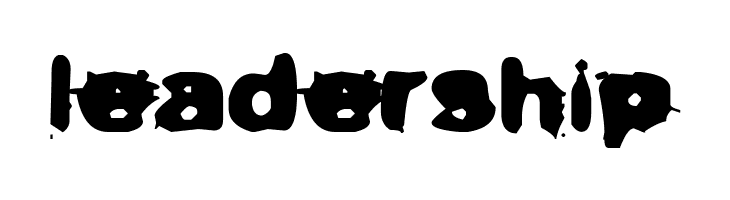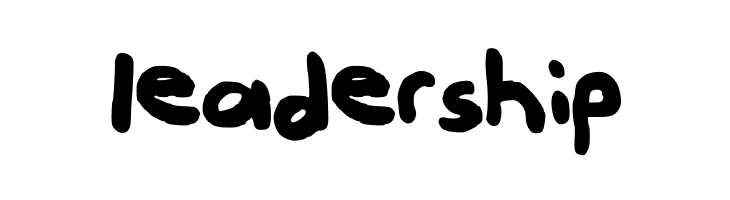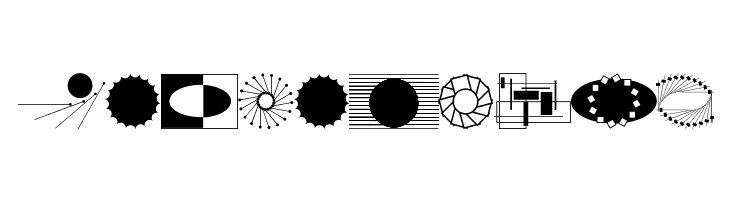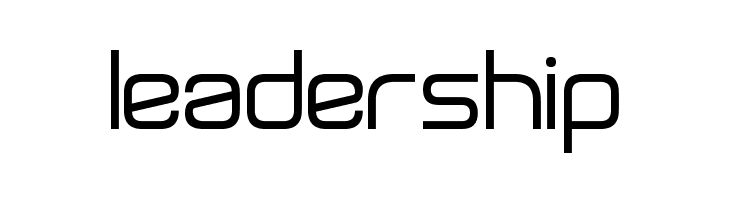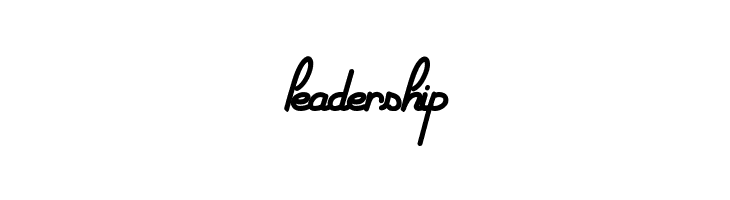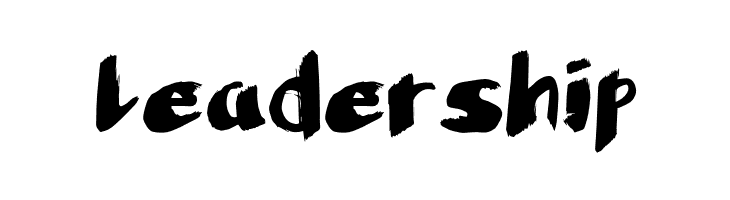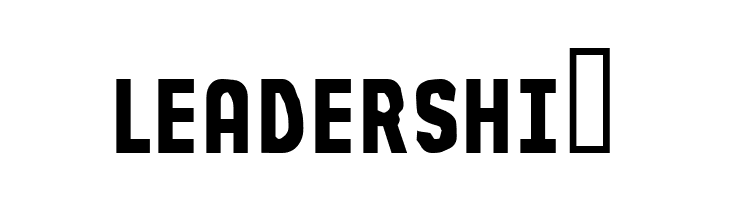
A sleek, modern font with geometric lines and a professional aesthetic.
A bold, angular serif font with a modern edge.
A collection of abstract and geometric shapes with intricate patterns.
A bold, grunge-style font with splattered, irregular edges.
An elegant, flowing script font with ornate, interconnected letterforms.
A bold, expressive font with a hand-painted, dynamic style.
A bold, playful handwritten font with thick strokes and a casual style.
A bold, condensed font with an industrial and retro feel.